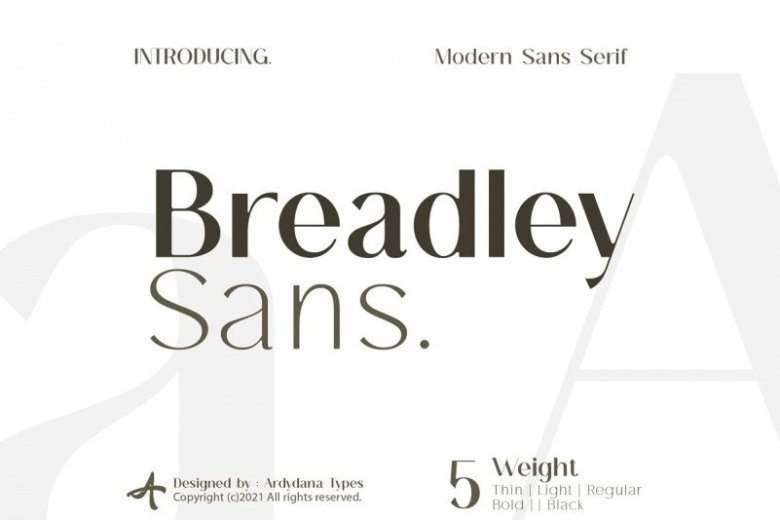
Breadley Font
Breadley Sans Serif Font, an elegant Art Deco-inspired sans serif typeface. This font equipped with 5 levels of thickness, from thin to black suits your needs.
Pairs well with modern san serifs and scripts as pictured, or stands strongly on its own as a heading and brand representative for an elegant look.
This Breadley Sans overcome with the professional modern characteristic font which could bring elegant and appealing identity to your company for business utilities use like business card, name tag, uniform as brand elevation
Advertising usage? sure! This modern Breadley typeface obviously fit to embossed as a letter signboard or even splash it along your office with an elegant look cutting sticker.